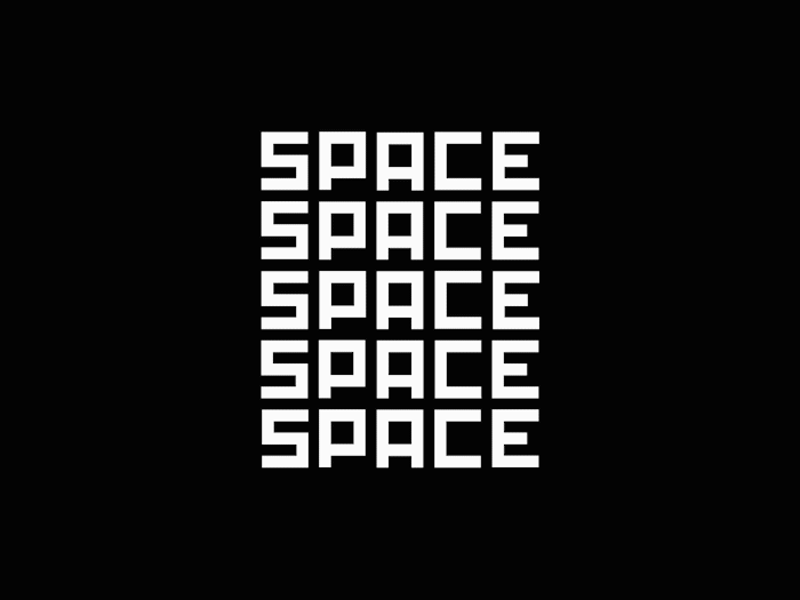
This is a project where I focused on typography. I tried to create a typeface that warps as space itself.
It comes in two versions – regular and expanded. You can combine both a create some unique typography styles.